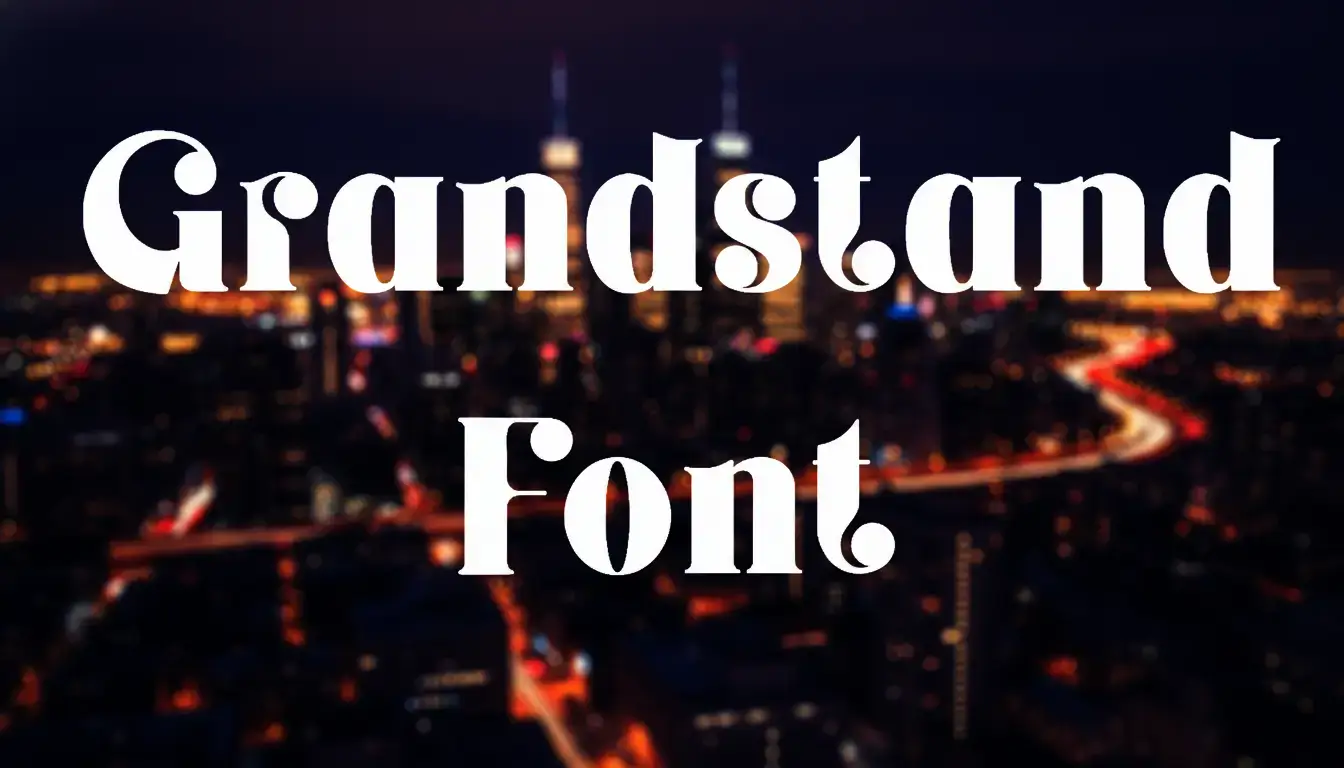
GrandStand Font
GrandStand is a fancy font. It's a decorative display font with plenty of personality, made to grab attention. It's a free download, and you can try it with your own text in the preview above first.
What You Can Type With GrandStand
With complete upper and lowercase letters and all ten digits, GrandStand is ready for real wording, not just a single headline. Everyday marks like &, !, ? and @ are there too. Thanks to its accented letters, it also works for Spanish, French, German, Portuguese and Italian, not just English.
Where GrandStand Works Best
Designers usually reach for fonts like GrandStand when they're making posters, logos and eye-catching headlines. Use it for one standout word or headline and let simpler fonts handle the rest.
Does GrandStand support accented letters?
Yes. GrandStand includes the accented letters needed for Spanish, French, German, Portuguese and Italian, so it works for more than just English.